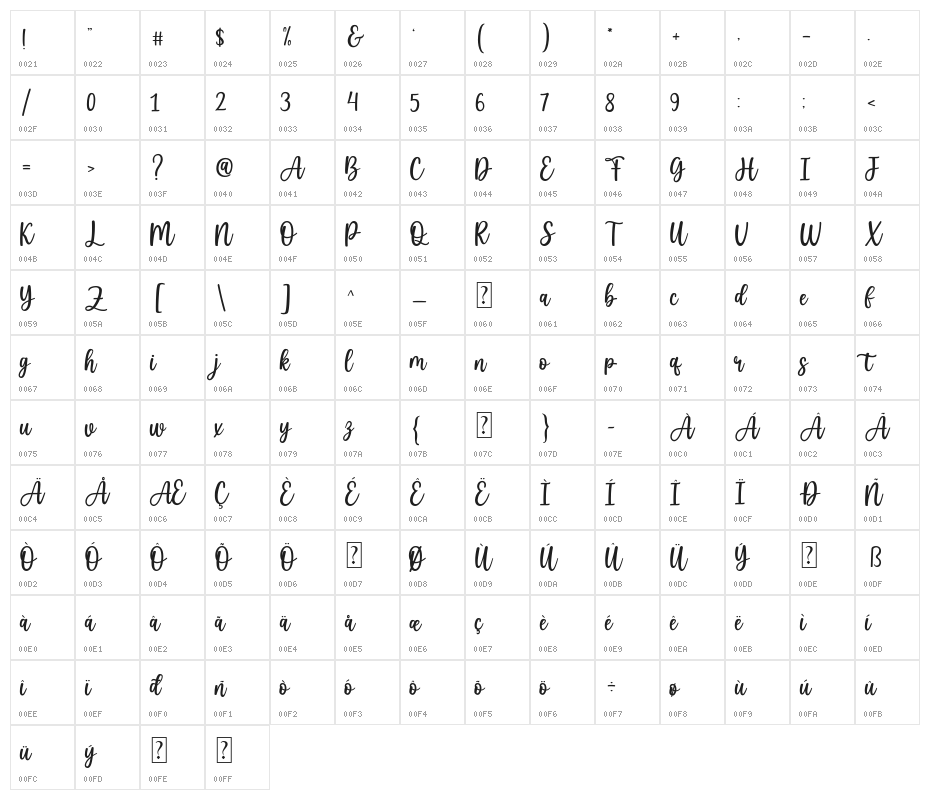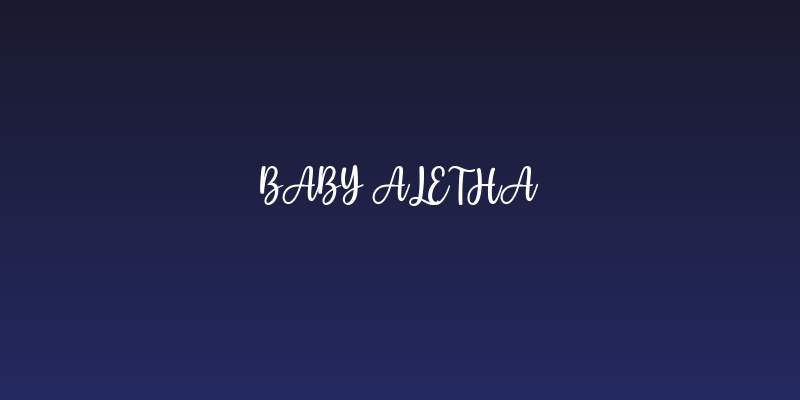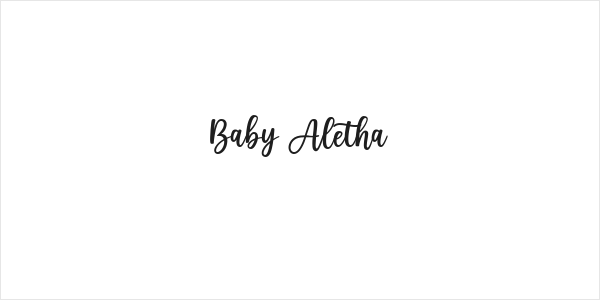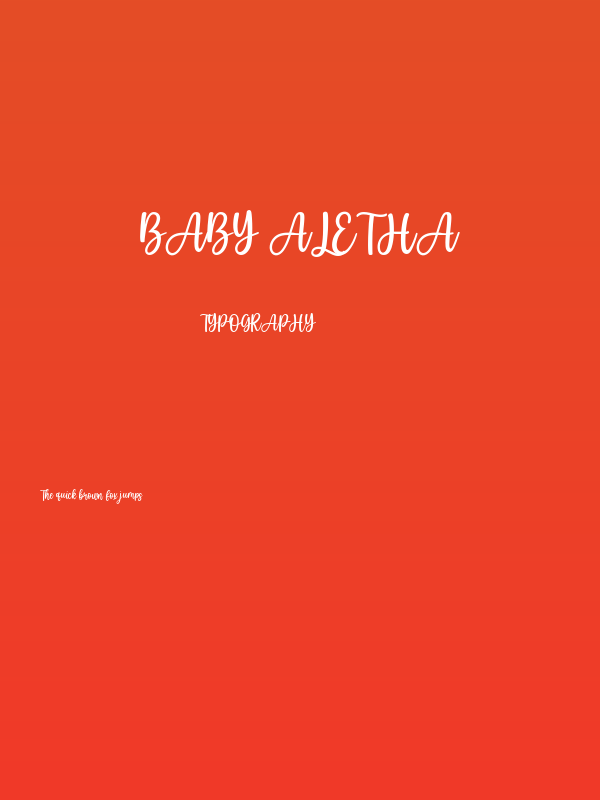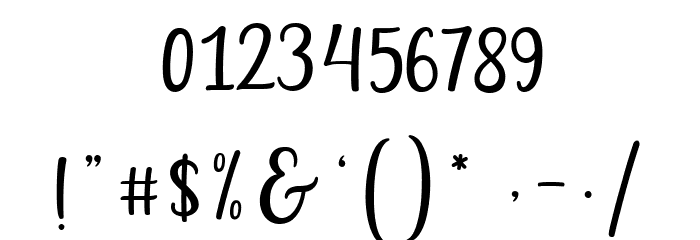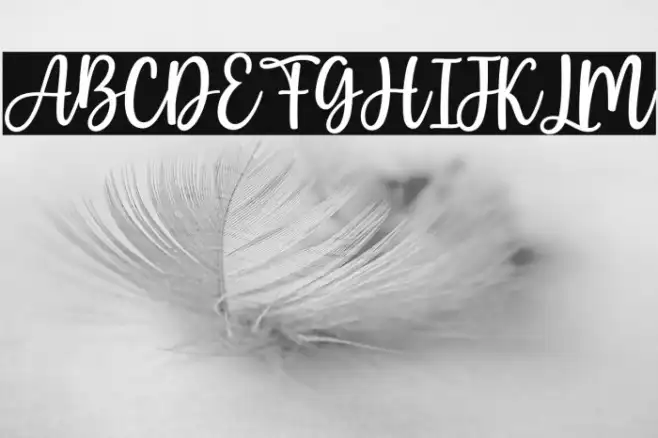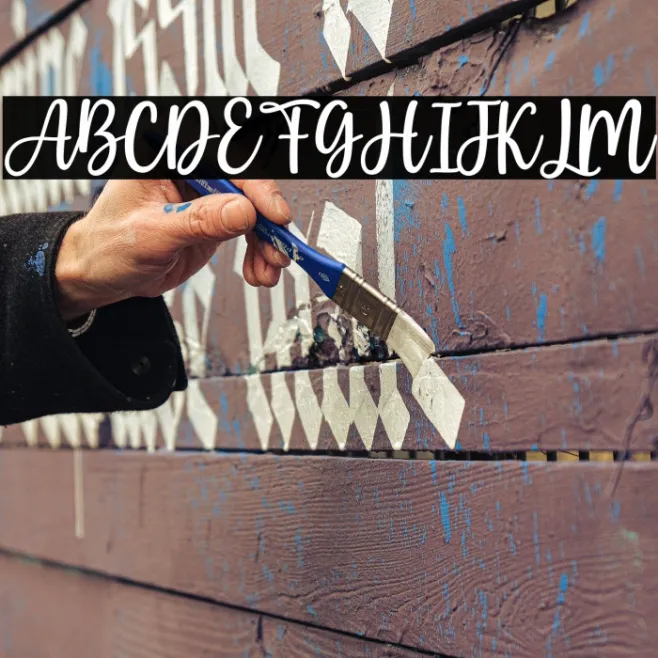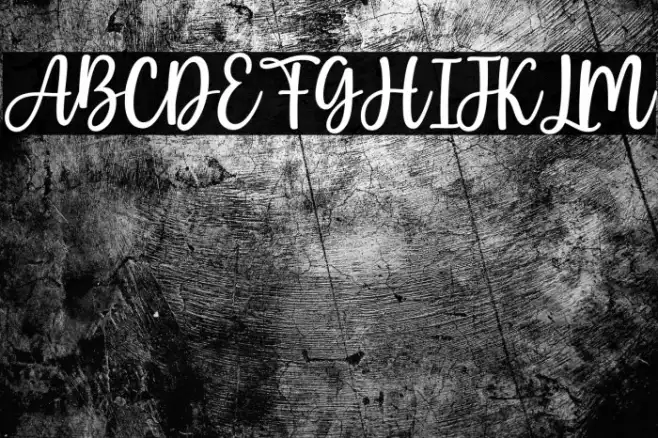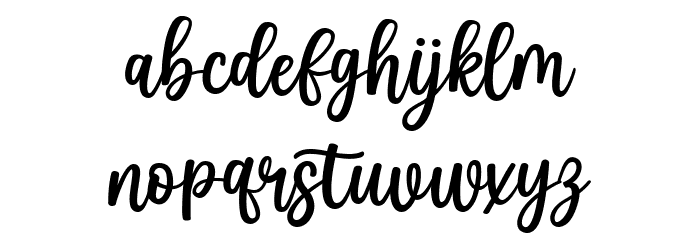
Baby Aletha Font
Baby Aletha Description
This font features a playful and elegant script style with smooth, flowing lines that create a sense of movement and grace. The uppercase letters are bold and slightly slanted, giving a dynamic and lively appearance. The lowercase letters maintain a consistent flow, enhancing readability while retaining a whimsical charm. Numbers and special characters are designed with the same fluidity, ensuring a cohesive look across all text. The overall design is modern yet timeless, perfect for adding a personal touch to any project.